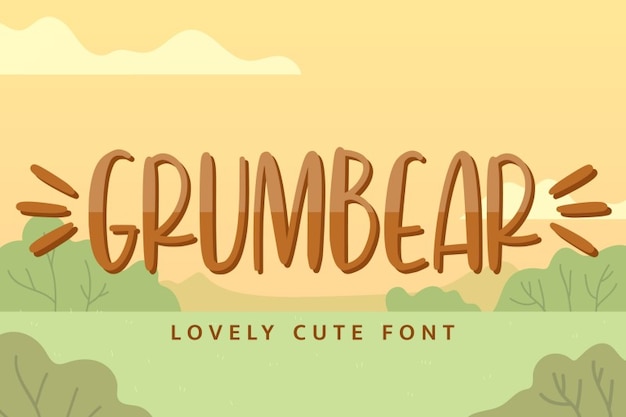
Grumbear is a lovely cute font made to enrich your creation with a playful tone. Its colors and design will make your creations appealing for everyone, adults and children! Download it now and have fun with this new font!
Grumbear (400)